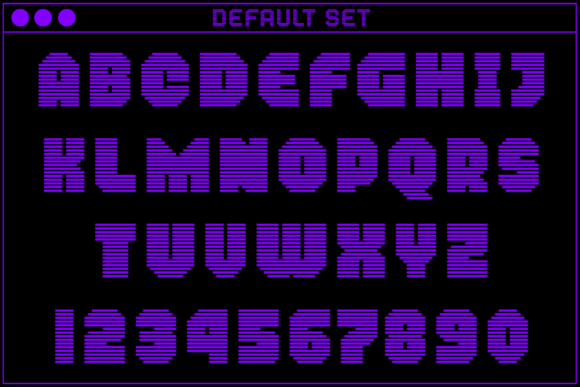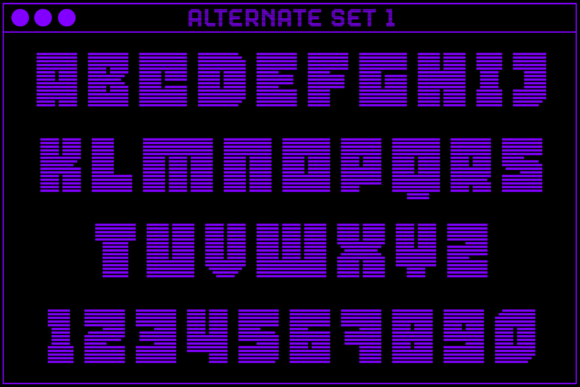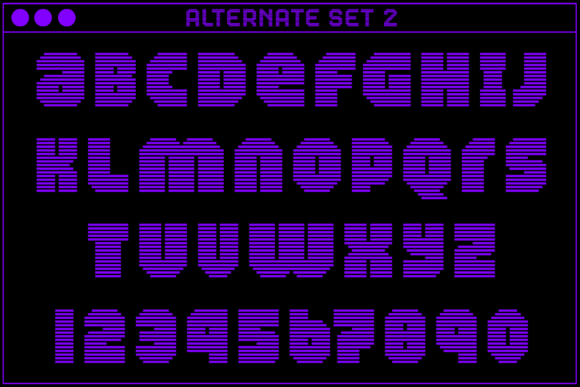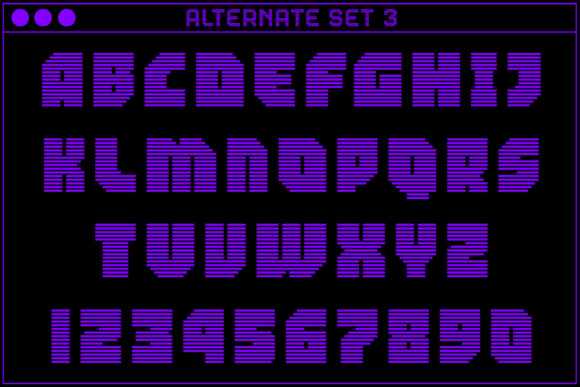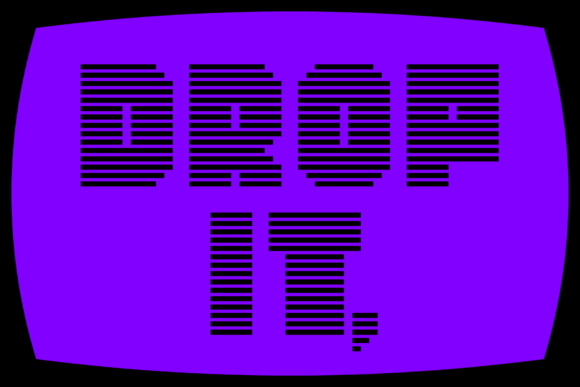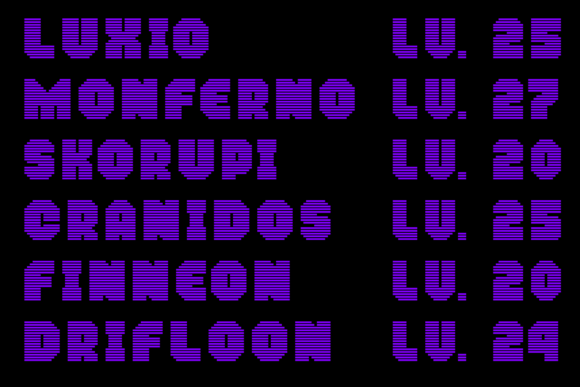
Introduction to MultiType Rows Regular Bold Font
MultiType Rows Regular Bold is a cool, uniquely shaped, pixelated display font.
Add a distorted and trendy touch to your designs with this unusual pixel font MultiType Rows Regular Bold is PUA encoded which means you can access all glyphs and swashes with ease.